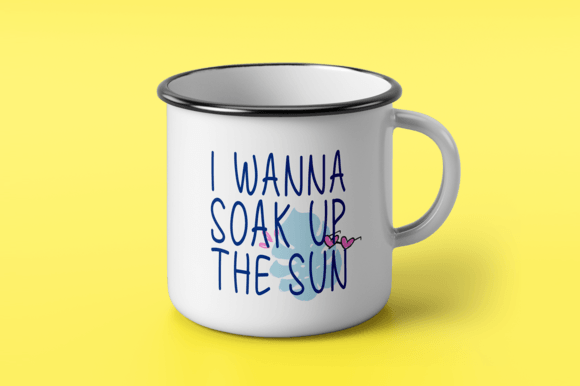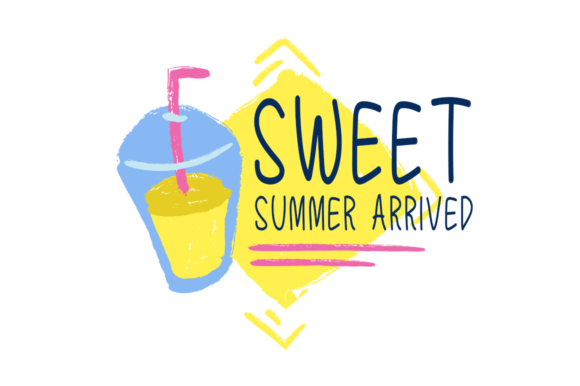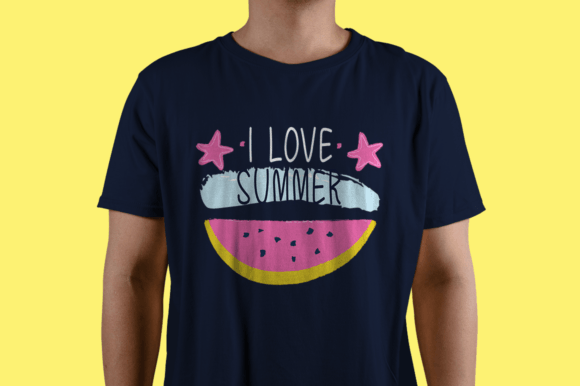
Introduction to Golden Sunrise Font
Golden Sunrise is a striking display font.
Why Choose Golden Sunrise Font?
Golden Sunrise Font offers exceptional quality and versatility, making it a valuable addition to your design toolkit. Whether you’re creating for personal projects or commercial use, Golden Sunrise Font delivers professional results.